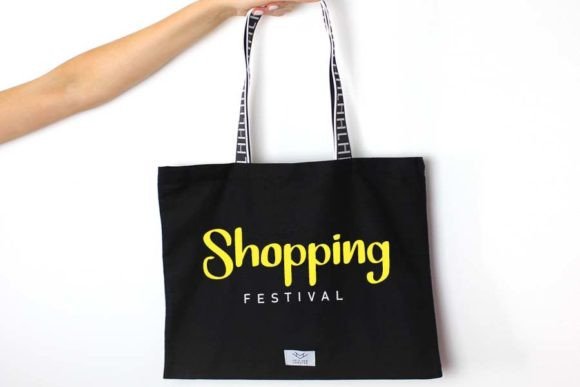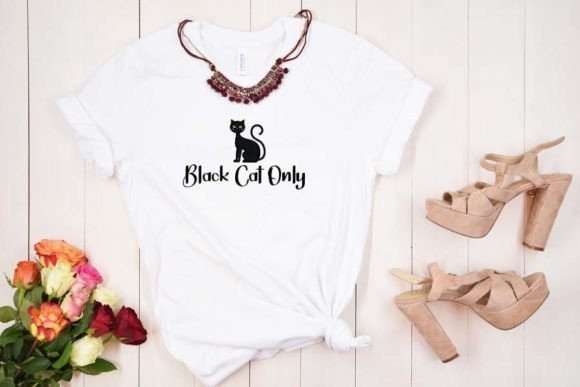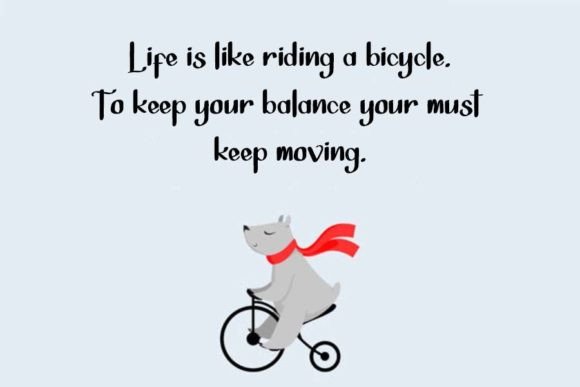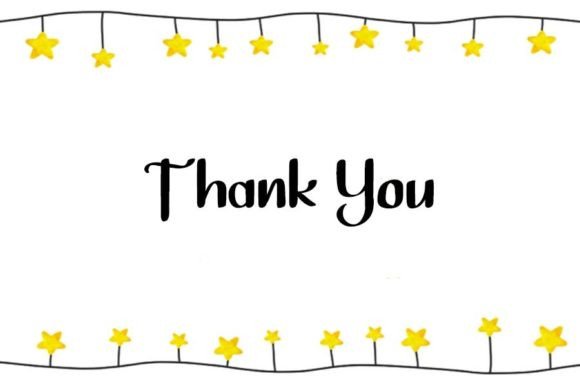
The Perfect Design Companion: Unleashing the Beauty of the Butterfly Font
Remember that moment when you stumbled upon a font that perfectly captured the essence of your design? It’s like finding a needle in a haystack, but in this case, it’s a beautiful, handwritten font that brings your creative vision to life. For designers, discovering the right font can be a game-changer, and that’s exactly what happens when you come across the Butterfly Font.
This playful, handwritten font is more than just a pretty face – it’s a versatile tool that can elevate your designs to new heights. With its natural and unique style, the Butterfly Font is the perfect companion for a wide range of projects, from branding and marketing materials to digital art and more. Its endless possibilities make it an invaluable asset for designers looking to add a personal touch to their work.
Key Features of Butterfly Font
- Unique Characteristics: Butterfly Font features a distinctive, whimsical design with intricate details and ornate flourishes, making it ideal for creative and artistic applications.
- Font Weight: The font is available in multiple weights, including Light, Regular, Medium, Bold, and Extra Bold, allowing designers to choose the perfect weight for their project.
Review of Butterfly Font
Overall, I think the Butterfly Font is a lovely addition to any design project. ✨ Its whimsical, hand-drawn feel adds a touch of elegance and sophistication to text. It’s perfect for creative, artistic projects where you want to convey a sense of playfulness and wonder.
- ✨ Unique and distinctive feel that sets it apart from other fonts.
- ✨ Beautifully rendered characters that are a joy to read.
- ✨ Suitable for a wide range of design applications, from invitations to editorial content.
- ⚠️ Limited in terms of legibility, especially at small font sizes.
- ⚠️ May not be the best choice for body text or large blocks of text due to its ornate nature.
- ⚠️ Requires careful selection and application to avoid overwhelming the viewer.
Overall, I think the Butterfly Font is a great addition to any designer’s toolkit, but it’s essential to use it thoughtfully and judiciously. With its unique charm and beauty, it’s sure to add a touch of magic to your designs.
Tips for Getting the Most Out of Butterfly Font
1. Use the font in combination with other decorative fonts to create a unique visual effect.
2. Experiment with different font sizes and styles to add emphasis to your text.
3. Use the font in headings and titles to add a touch of elegance to your design.